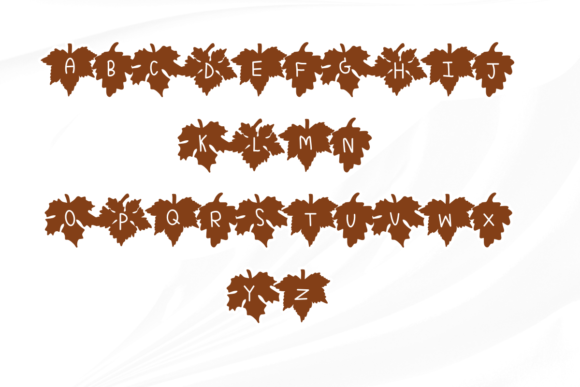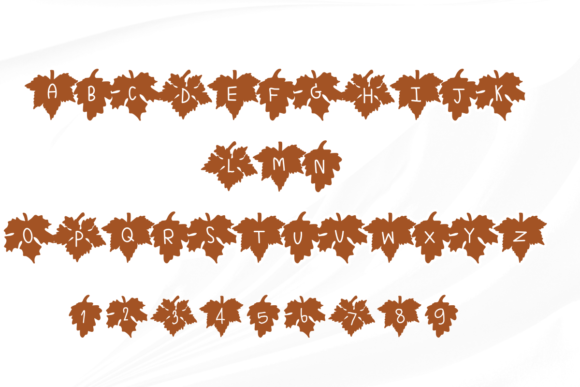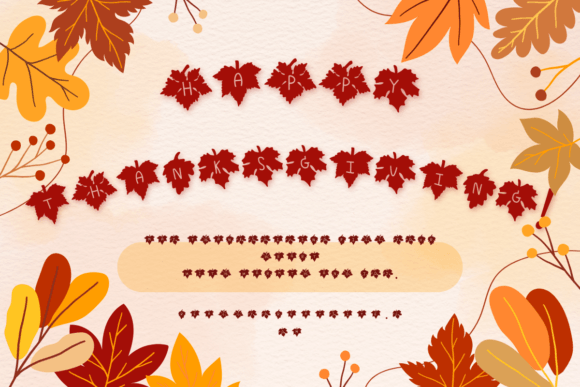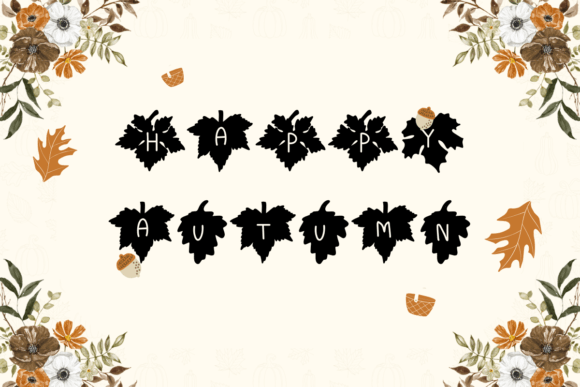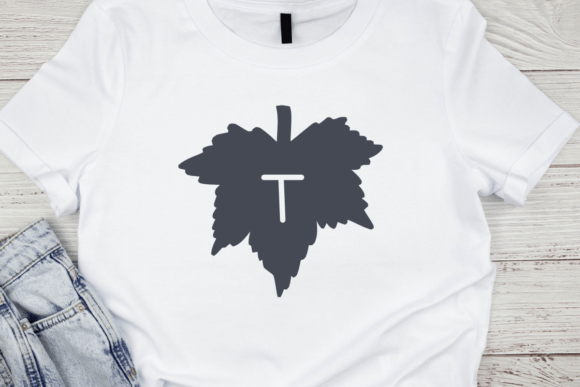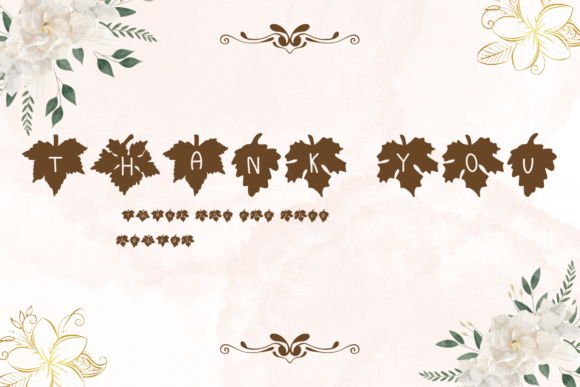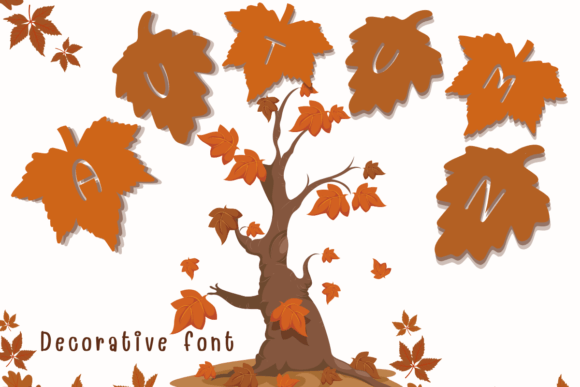
Introducing Autumn Font: A Decorative Delight for Designers and Crafters
As the seasons change and autumn leaves start to fall, designers and crafters are on the lookout for fonts that evoke the warmth and coziness of this special time of year. That’s where Autumn Font comes in – a beautiful, decorative font that’s perfect for a wide range of creative projects. In this article, we’ll take a closer look at Autumn Font, its features, and how you can use it to add a touch of autumnal charm to your designs.
What is Autumn Font?
Autumn Font is a decorative font designed to capture the essence of the autumn season. With its intricate details and ornate style, it’s perfect for adding a touch of elegance and sophistication to your designs. Whether you’re a designer, crafter, or DIY enthusiast, Autumn Font is a versatile and beautiful addition to your font collection.
Uses for Autumn Font
Autumn Font is a versatile font that can be used for a wide range of creative projects. Here are some ideas to get you started:
- Journaling and note-taking: Add a touch of autumnal charm to your journal or notes with Autumn Font. It’s perfect for writing down your thoughts, goals, or inspiration.
- Diary writing: Make your diary entries more special with Autumn Font. It’s a great way to add some personality and style to your writing.
- Greeting cards: Create beautiful, one-of-a-kind greeting cards for special occasions like Thanksgiving, Halloween, or Christmas.
- Banners and signs: Use Autumn Font to create eye-catching banners and signs for parties, events, or special occasions.
- Social media posts: Add a touch of autumnal charm to your social media posts with Autumn Font. It’s a great way to make your posts stand out and engage your audience.
- Mugs and ceramics: Use Autumn Font to create beautiful designs for mugs, ceramics, or other home decor items.
- T-shirts and apparel: Create unique and stylish designs for t-shirts, hoodies, or other apparel items.
- Stationery and paper crafts: Add a touch of elegance and sophistication to your stationery, paper crafts, or scrapbooking projects with Autumn Font.
Features of Autumn Font
Autumn Font has several features that make it a standout decorative font:
- Intricate details: Autumn Font features intricate details and ornate style, making it perfect for designs that require a touch of elegance and sophistication.
- Autumnal theme: The font is designed to evoke the warmth and coziness of the autumn season, making it perfect for seasonal designs.
- Versatility: Autumn Font can be used for a wide range of creative projects, from journaling and note-taking to designing banners and signs.
Tips for Using Autumn Font
Here are some tips for using Autumn Font in your designs:
- Experiment with different colors: Autumn Font looks great in a range of autumnal colors, from warm oranges and yellows to rich reds and browns.
- Mix and match with other fonts: Autumn Font pairs well with other fonts, so don’t be afraid to mix and match to create a unique look.
- Use it for headings and titles: Autumn Font is perfect for headings and titles, adding a touch of elegance and sophistication to your designs.
Autumn Font is a beautiful, decorative font that’s perfect for designers and crafters looking to add a touch of autumnal charm to their designs. With its intricate details, ornate style, and versatility, it’s a great addition to any font collection. Whether you’re creating journal pages, greeting cards, or social media posts, Autumn Font is sure to inspire your creativity and add a touch of warmth and coziness to your designs.